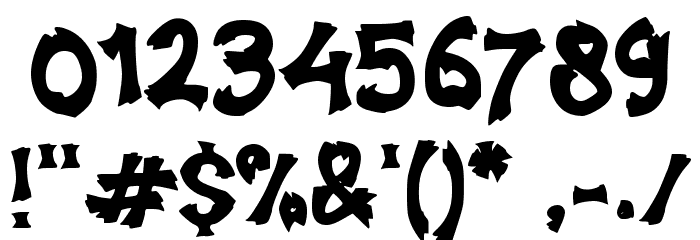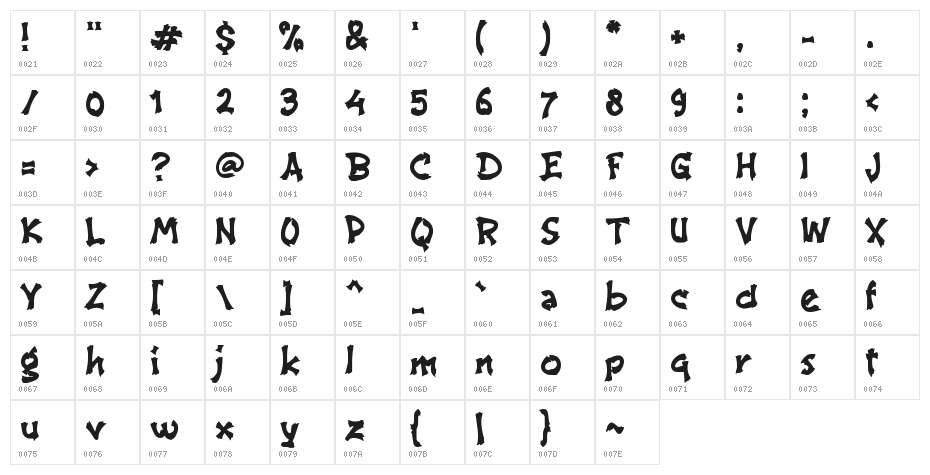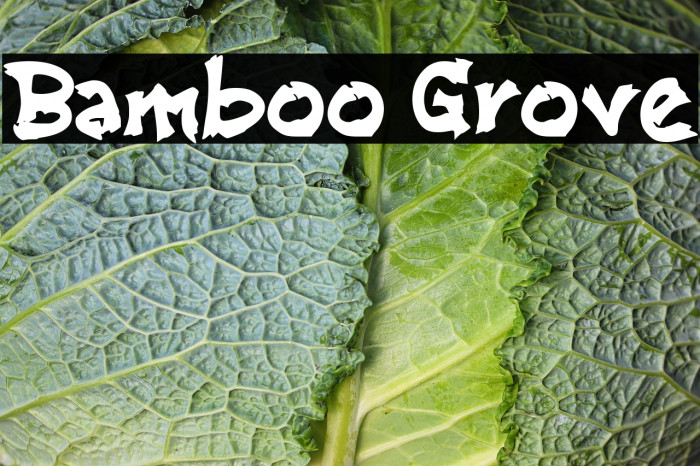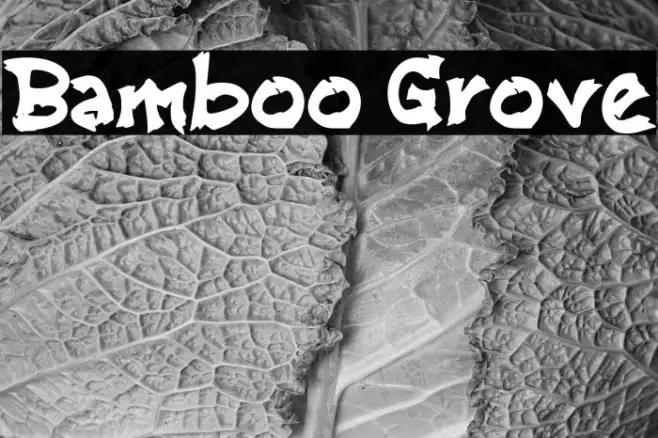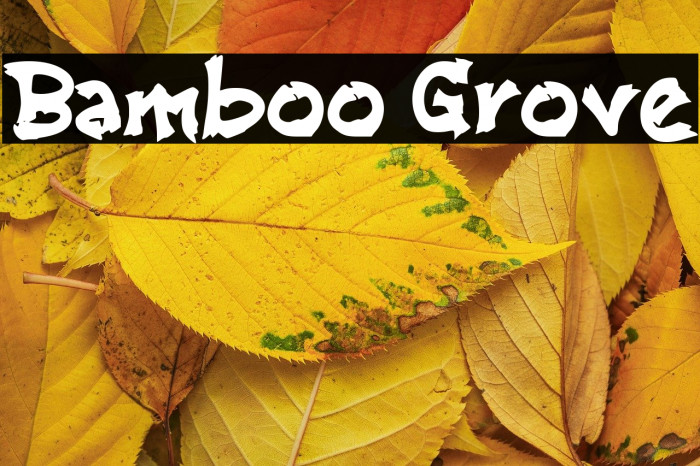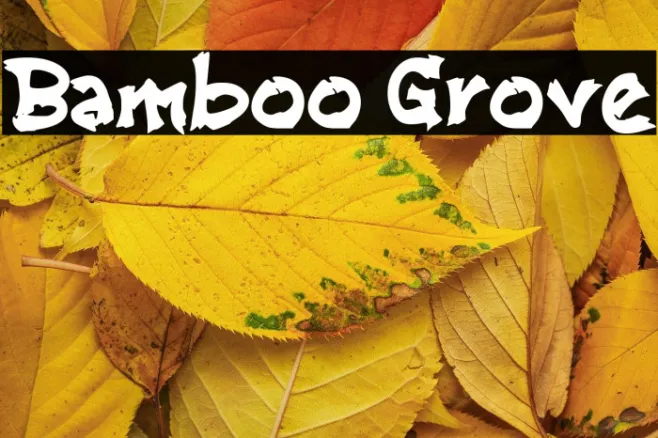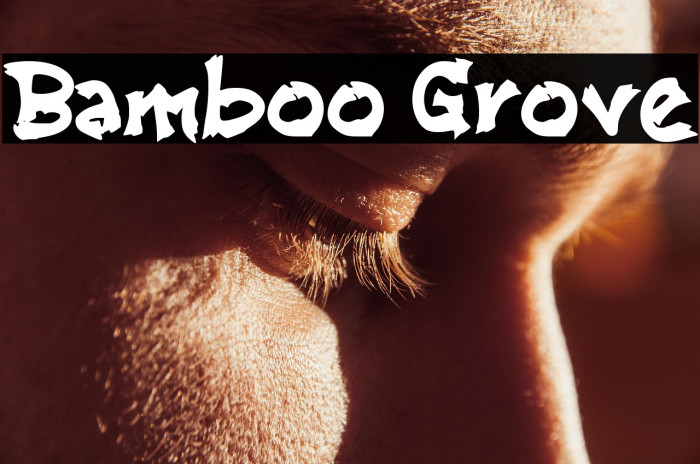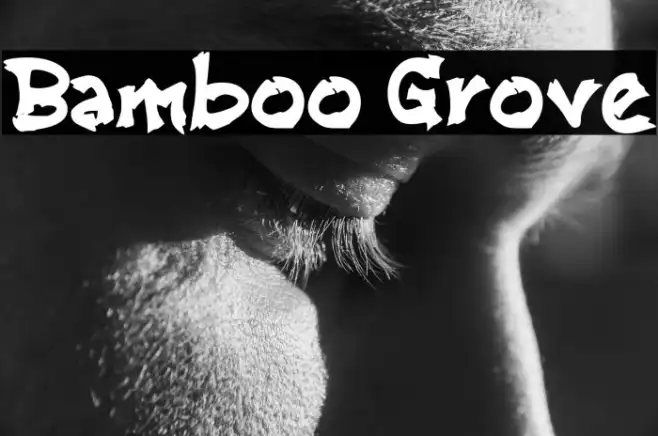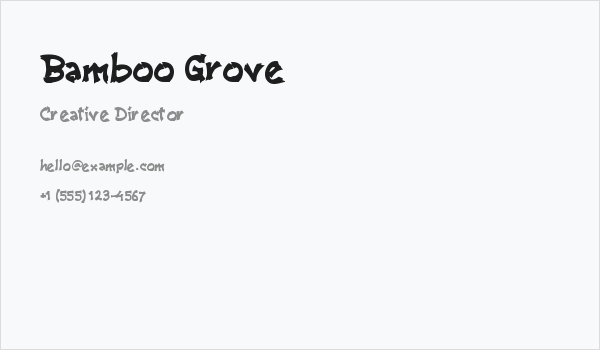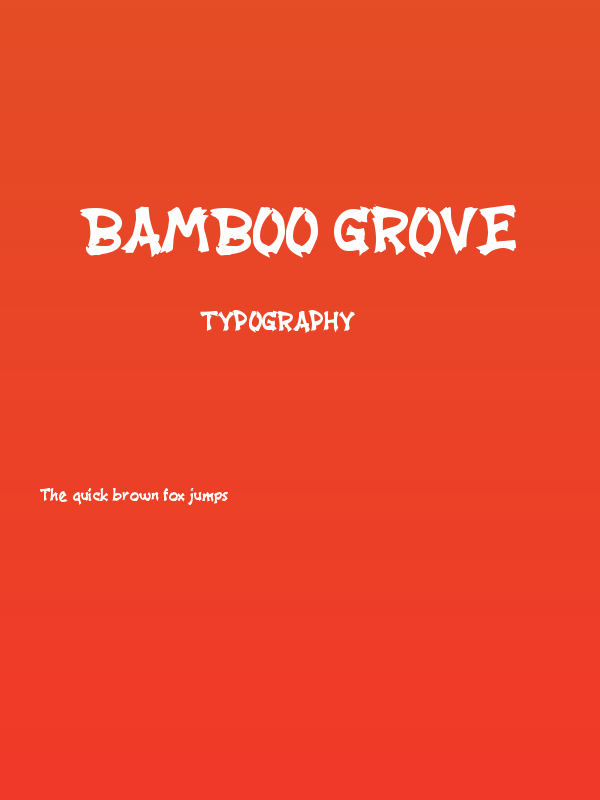
Bamboo Grove Font
Bamboo Grove Description
This font features a bold and dynamic style with an organic, brush-like appearance. The characters are irregular and have a hand-drawn quality, reminiscent of bamboo stalks or natural elements. The strokes are thick and uneven, giving it a lively and energetic feel. The uppercase and lowercase letters maintain a consistent style, with sharp angles and pointed ends that add to its distinctive look. The numbers and special characters are equally bold, ensuring a cohesive appearance across all elements.
| Use Case | Logos, Posters, Creative projects |
| Proposed Projects | Ideal for projects that require a natural or artistic touch, such as eco-friendly branding, creative posters, or unique packaging designs. |